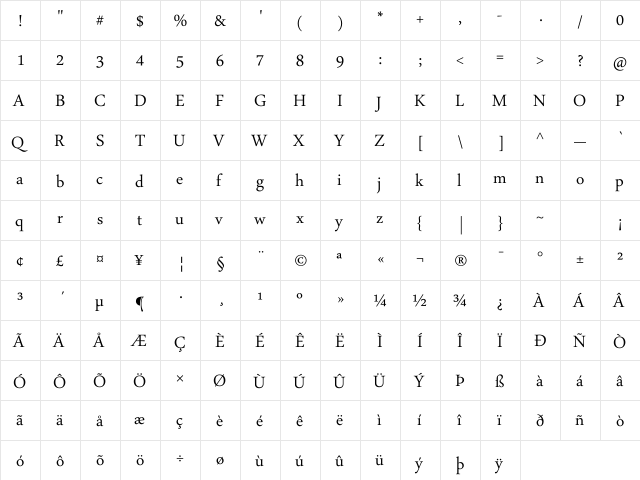
DaunPenh Regular
| Foundry | OM Mony |
| Designer | OM Mony |
Design Context for DaunPenh Typeface
DaunPenh is a composed and adaptable typeface that performs quietly and consistently across a wide range of design contexts.